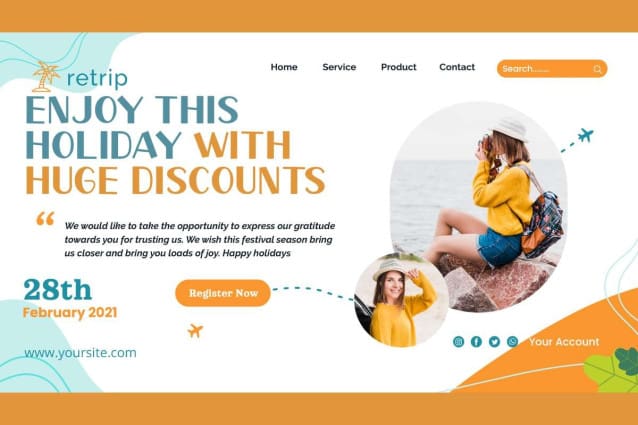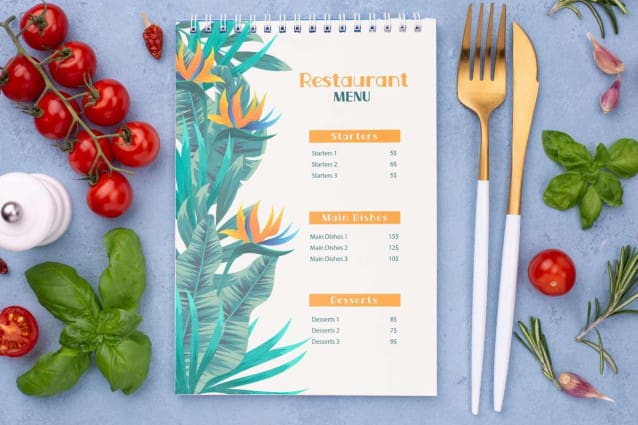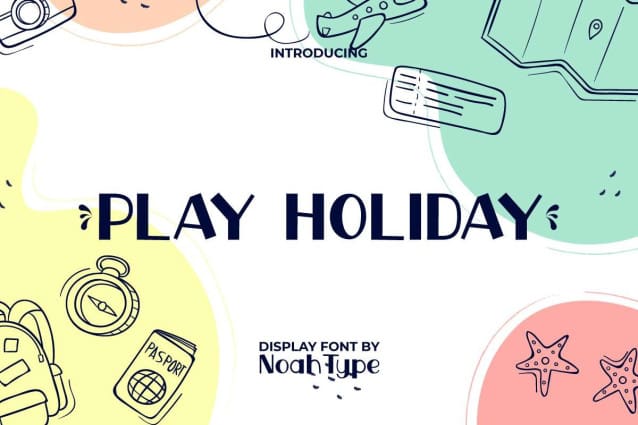
Play Holiday Font
Play Holiday Font is a cute and playful display font with boxy and thick letters. This font can complete your design with a refreshing and cheerful summer holiday theme. The font is made to be suitable for any industries, such as advertisement agency, café, event or festival, fashion, food and beverage, furniture, printing, publishing, restaurant, and more!
Play Holiday Font includes full set of Uppercase and Lowercase Basic Characters, Numerals, Punctuation, and Swoosh. Get inspired and use this charming font in your various designs, such as brand logo, brochure, business card, label, menu, mockup design, poster, product packaging, quote, screen printing, stationery, website, and more!